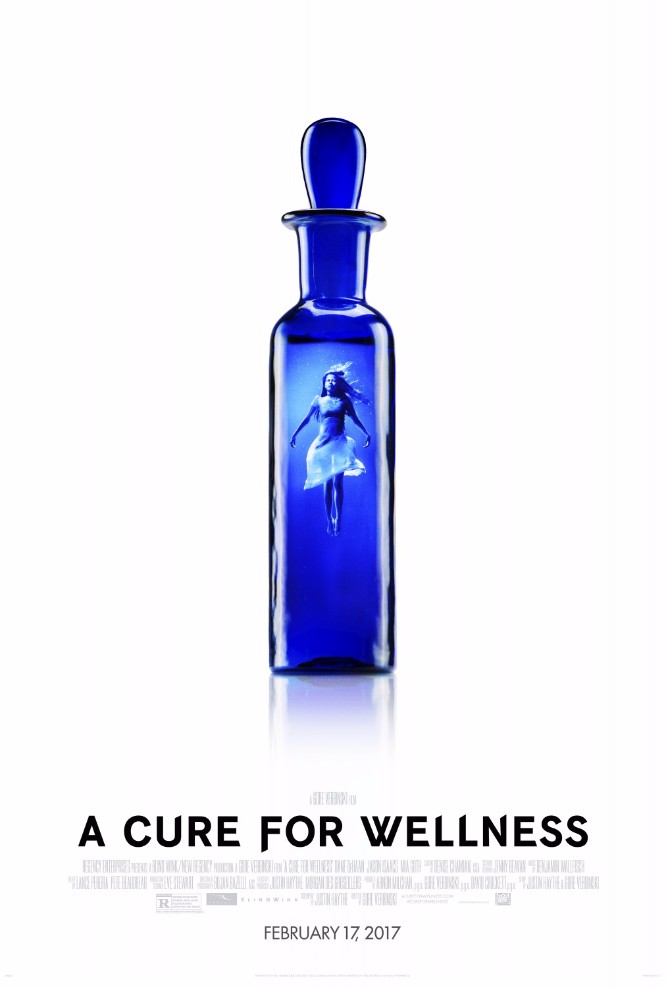
A Cure for Wellness Font
Fonts in UseA Cure for Wellness is a psychological horror film directed by Gore Verbinski, which follows a young executive sent to retrieve his company's CEO from a mysterious wellness center in the Swiss Alps, but he soon discovers the sinister secrets lurking within the institution.
Argentinian graphic designer Franco Fernández designed a font inspired by the lettering of the movie title. The font includes uppercase and lowercase letters, numerals, and some punctuation marks, and can be downloaded for free from the Fonts Used Section.